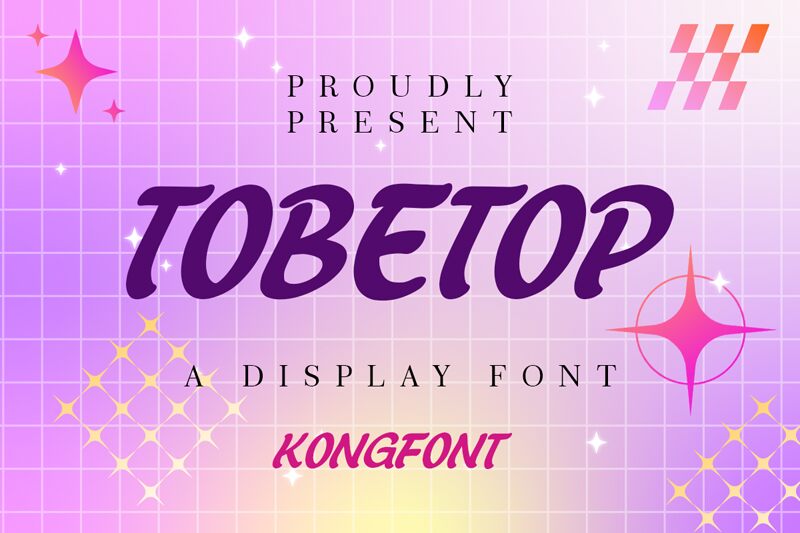
Tobetop font by Kong Font is a free script font that stands out for its expressive quality and fluid movement. With a contemporary and modern feel, the letters of this font remind us of handwriting that balances both carefully and organically curated details and impactful forms. The result is an energetic yet casual set of characters that can be used to give a lively feel to any project you use it for.
As scripts are suited for branding, advertising, and similar eye-catching projects, use Tobetop in logo design and visual identity. Sport it in packaging design, magazines, book covers, headers, mobile applications, and more. One great advantage of Tobetop is how versatile it is in various media, whether print or digital environments.